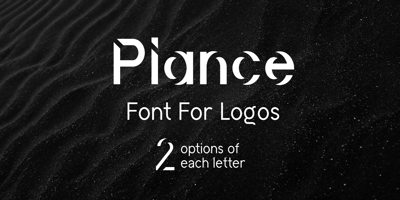
Plance Font Family was designed by Hsan Hajji and published by Hsan Fonts. Plance contains 4 styles and family package options. Plance is a font for simplified logo design.The font is suitable for creating headlines, logos, text and advertising tagsAll alternate options for characters are included in each font.You can use the alternatives in most major photo editors.